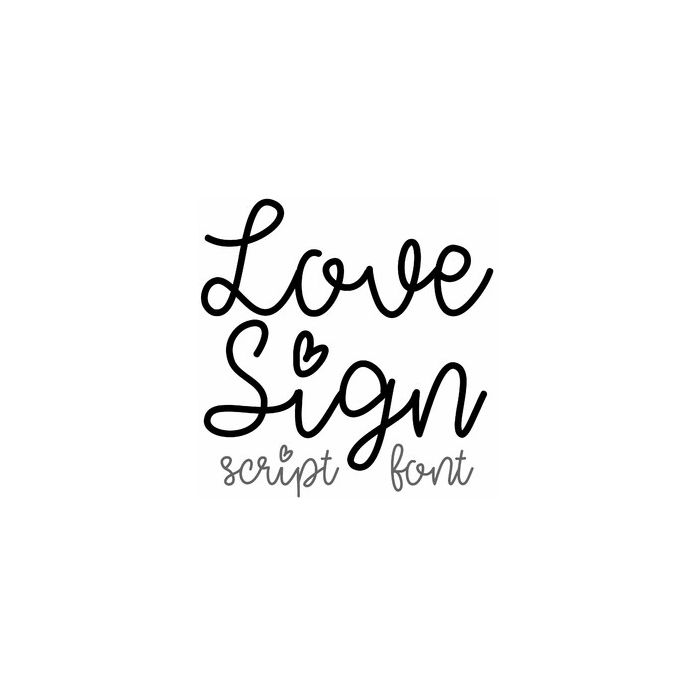
love sign script font
Love Sign is a handwriting script font, cute for cards, monograms, personalization projects, stickers, labels, and crafting gifts.